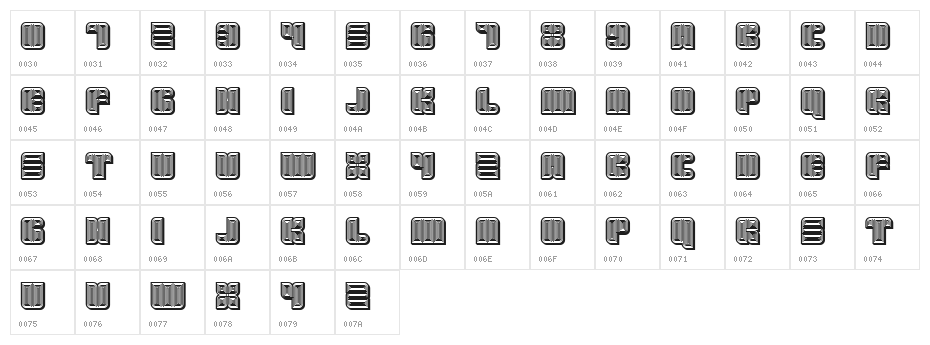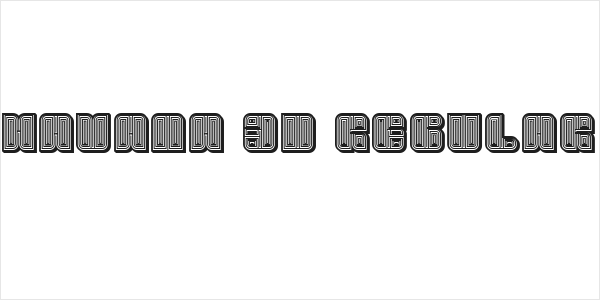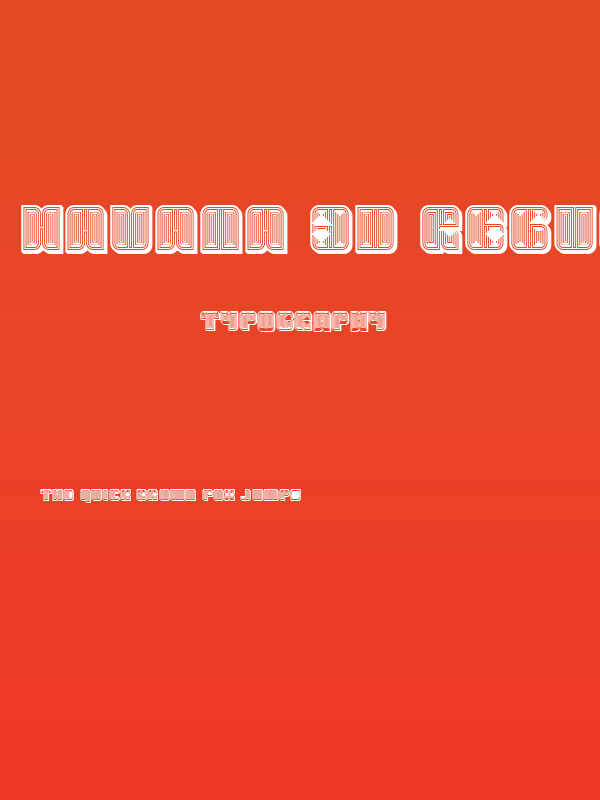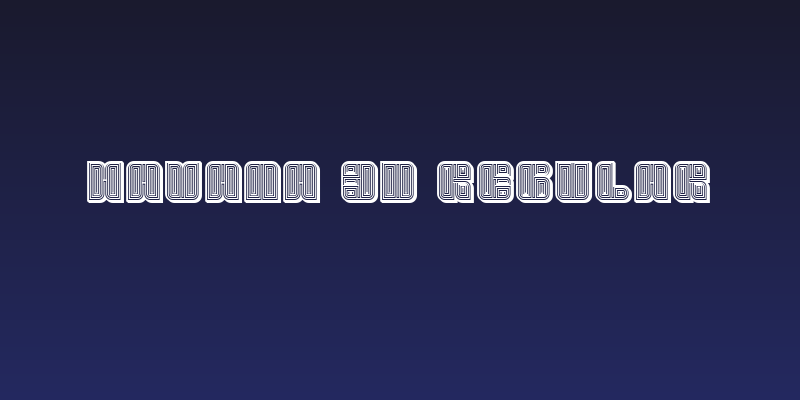
Havana 3D Regular Font
Havana 3D Regular Description
This font features a bold, three-dimensional design with a unique layered effect that gives each character a sense of depth and volume. The letters are constructed with multiple parallel lines that create an intricate, maze-like appearance. This design is consistent across uppercase, lowercase, numbers, and special characters, providing a cohesive look. The font's geometric structure and bold presence make it stand out, ideal for eye-catching designs. Its decorative style is perfect for projects that require a strong visual impact, such as posters, logos, and headlines. The intricate detailing within each character adds a modern and artistic flair, making it suitable for creative and contemporary applications.
| Proposed Projects | Ideal for posters, logos, headlines, and any project requiring a bold, artistic statement. |